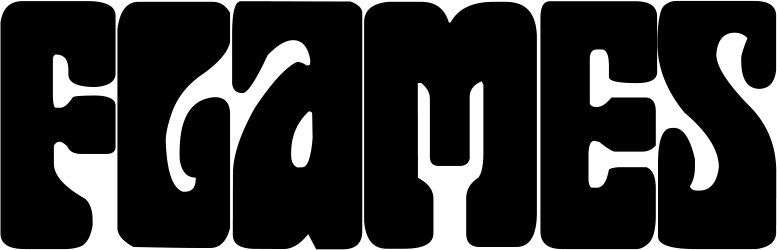
Flames Font
This superhot psychedelic font comes with the authentic style of art nouveau and brings a psychedelic vibe to your projects. Flames suit catalogs, movie posters, music covers, etc. It has heavy character but the readability of longer text might decrease by using it.
This the first ever digitalization of this psychedelic/art nouveau typeface, that was called “Dreamline” and appeared in 60’s-70’s Mecanorma catalogs, the year of release was 1969 and it seems to be inspired by Alfred Roller’s late 1890’s-early 1900’s lettering.
“Dreamline” was used extensively in records in the late 60’s and early 70’s, especially the ones that were made in Europe, i think that it was used as a response to the Wes Wilson lettering.
In the new update, i added the original numerals and the original “Q”.